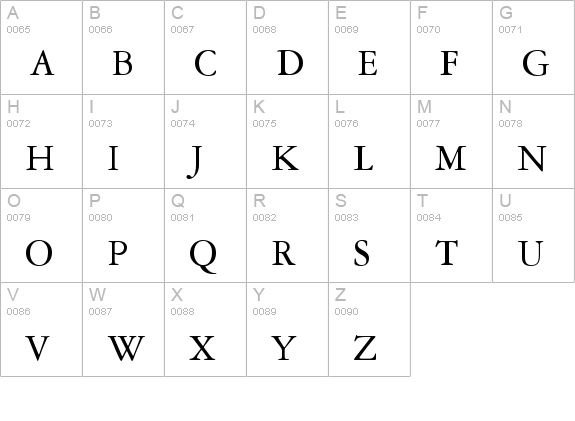
Amery Normal is the standard, neutral variant in the Amery typeface family \xE2\x80\x94 well suited to general body text, paragraphs, and standard typographic work.
Introducing Amery Normal font, a modern and versatile typeface designed to add a touch of sophistication to your projects. With its clean lines and elegant curves, Amery Normal is perfect for a wide range of design applications, from branding and logo design to web design and print materials. This font is ideal for creating sleek and professional-looking designs that stand out from the crowd. Whether you're working on a corporate presentation or a personal project, Amery Normal will help you make a lasting impression. Best of all, Amery Normal is available for free download at FontsMarket.com. So why wait? Download this beautiful font today and take your designs to the next level!